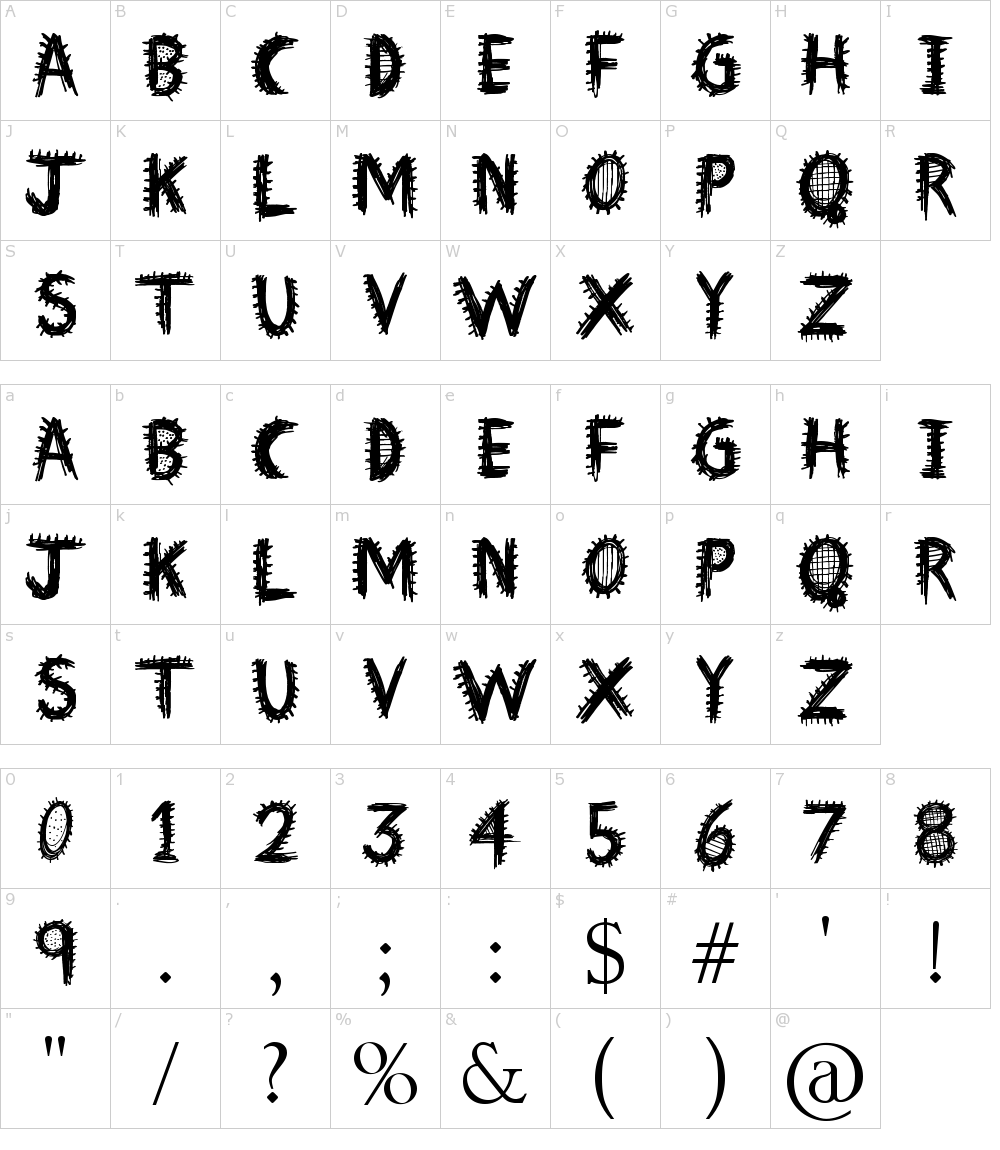
The Best Insane Fonts Ideas. These weird types of text fonts you can use in your online social media platforms like facebook, instagram, twitter, etc. Although the typography is traditional, the basic elements are great.
Download the font insane font by jonathan s. It creates an effect of mystery, and at the same time. These weird types of text fonts you can use in your online social media platforms like facebook, instagram, twitter, etc.